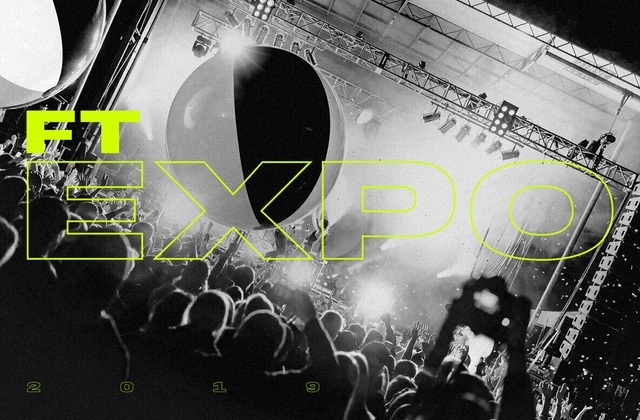
FT EXPO Font
FT EXPO Font is perfect for various design applications including trade show exhibition materials, international expo signage, convention center displays, corporate exhibition booths, product showcase presentations, global business event graphics, international conference materials, expo pavilion branding, large-scale event promotions, and professional exhibition communications. This professional typeface excels in projects requiring expo authority and international business appeal that captures the global connectivity and professional excellence of major trade exhibitions and international business events.
What makes FT EXPO Font so exciting is its commanding embodiment of international business authority and expo professionalism through letterforms that suggest global connectivity and the sophisticated infrastructure required for major international exhibitions. The font features clean geometric construction that ensures excellent readability in large exhibition spaces, professional proportions that communicate business credibility and international standards, and distinctive character details that reflect the precision and attention to detail essential for successful global business presentations. Its distinctive expo character and international appeal make it perfect for exhibition brands seeking to communicate professionalism, global reach, and the kind of international business credibility that attracts global participants and business partnerships.
FT EXPO Font family includes comprehensive weight options and exhibition-focused variations that enhance its versatility for different international business applications. Each style maintains the font's signature professional character while providing clear hierarchy options for complex exhibition communications. The family also features international business symbols, expo decorative elements, and global connectivity ornaments that can be combined with the letterforms to create cohesive international exhibition design systems.
Whether you're developing exhibition brands, international business communications, or global event materials, FT EXPO Font Free Download provides authoritative typography that establishes international credibility and celebrates the transformative power of global business connections and international trade exhibitions. This typeface transforms standard communications into professional statements that reflect international business competence and global market awareness. The font's expo appeal makes it particularly effective for trade show organizers, international business services, and global exhibition companies targeting international audiences who value professional excellence and global business connectivity.
FT EXPO Font stands out through its intelligent balance of international professionalism with contemporary functionality that ensures optimal performance in demanding exhibition environments. Its precisely calibrated expo proportions and international details guarantee exceptional readability across cultural and linguistic boundaries, while its professional character adds global credibility that reflects worldwide business standards. From comprehensive exhibition branding to international business communications, this font provides designers with tools to create communications that celebrate global business excellence and demonstrate sophisticated understanding of international exhibition design through professional, expo-inspired typography that connects global markets.